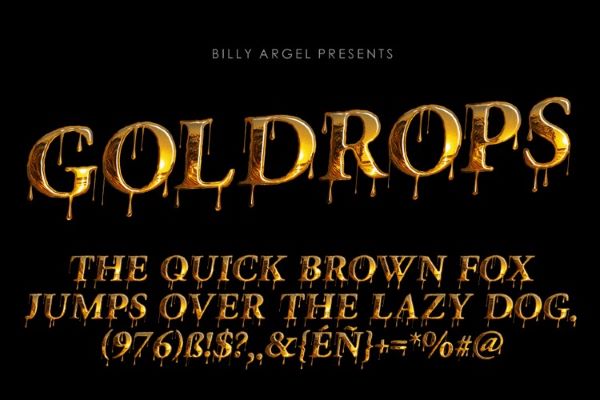
Goldrops
Goldrops Font
GOLDROPS SVG is a decorative SVG font set featuring two styles—regular and italic—plus a bonus. Built with OpenType SVG technology, it’s supported in modern apps like Adobe Photoshop and Illustrator 2017, Firefox, and Microsoft Edge on Windows 10.